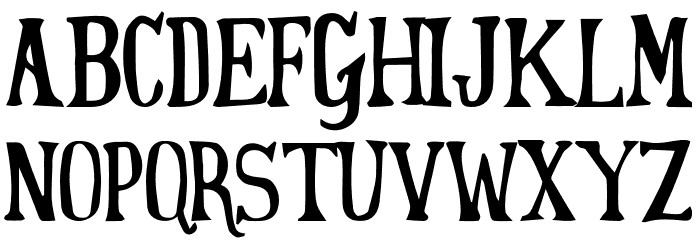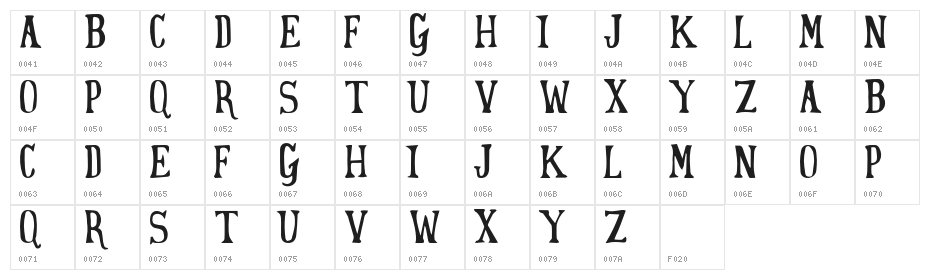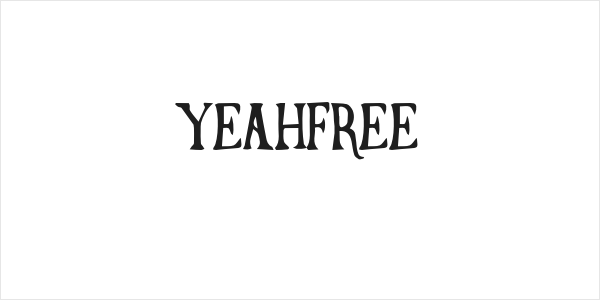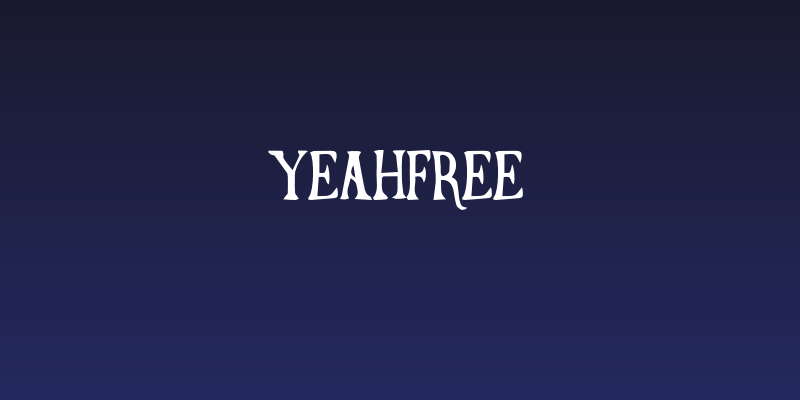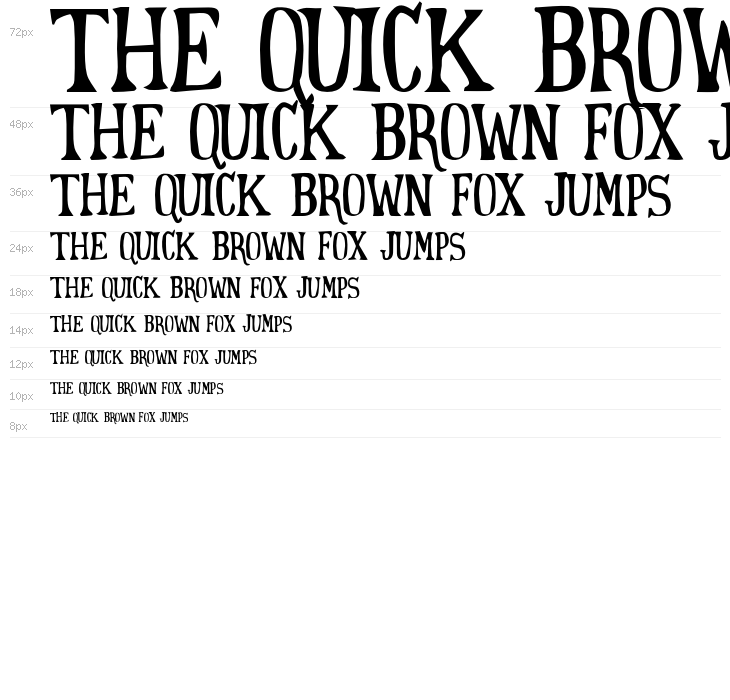
yeahfree Font
This font features a bold and decorative style with a playful, whimsical flair. The characters have a unique, hand-drawn appearance, with exaggerated serifs and varying stroke widths that create a dynamic and engaging visual impact. The uppercase letters are particularly distinctive, with some characters featuring elongated or curved elements that add to the font's quirky personality. The overall design is reminiscent of vintage or retro styles, making it suitable for projects that require a touch of nostalgia or artistic flair. The font's boldness ensures it stands out, making it ideal for headlines or display purposes.
A bold, decorative font with a whimsical, hand-drawn style.
- Proposed Projects: Ideal for posters, logos, book covers, and any project needing a vintage or artistic touch.
- Overall Style: Vintage